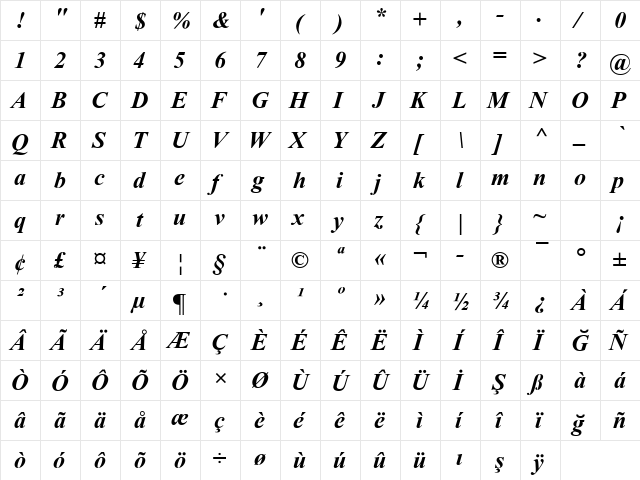
Turkish Times New Roman Bold Italic Font Preview
Design Context for Turkish Times New Roman Typeface
Turkish Times New Roman is a composed and adaptable typeface that performs quietly and consistently across a wide range of design contexts. The dynamic lean of this cut emphasises speed and emphasis in any layout. The heavy weight commands attention and anchors typographic hierarchies.